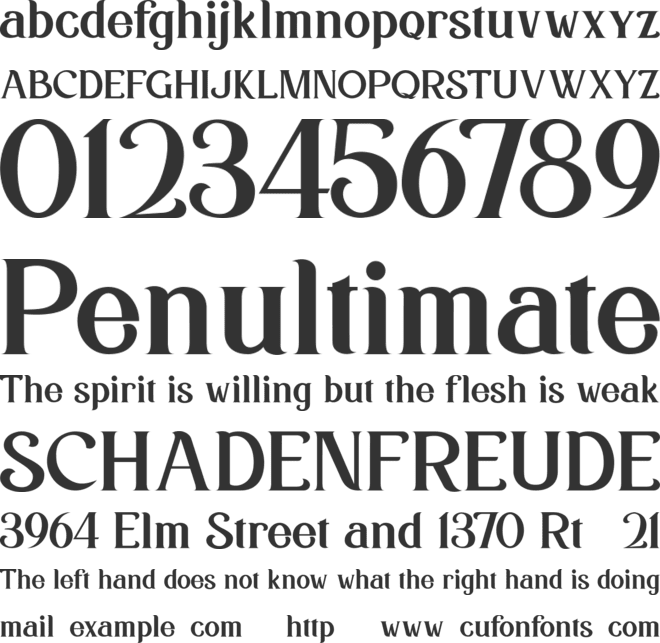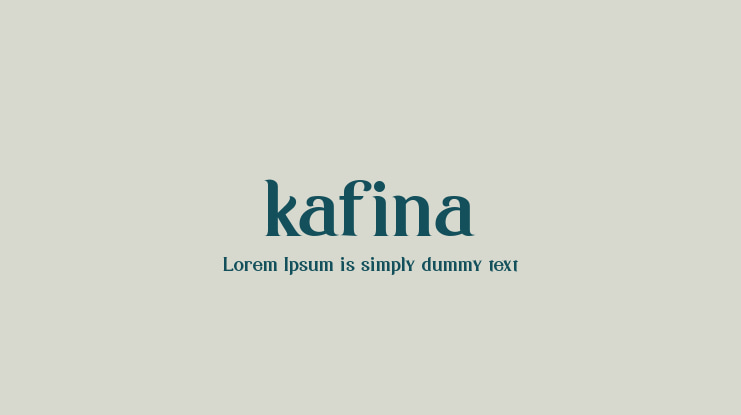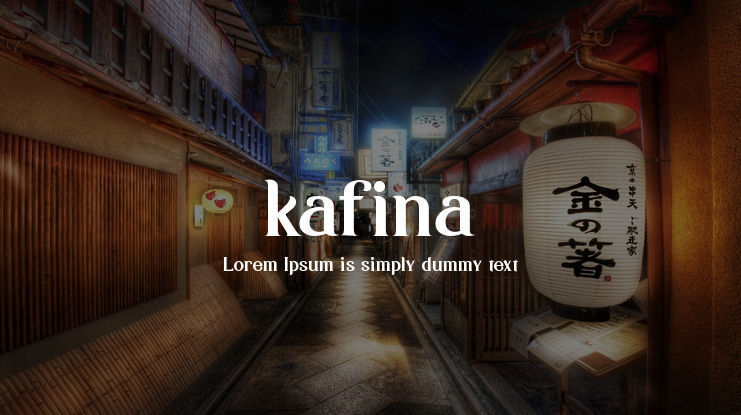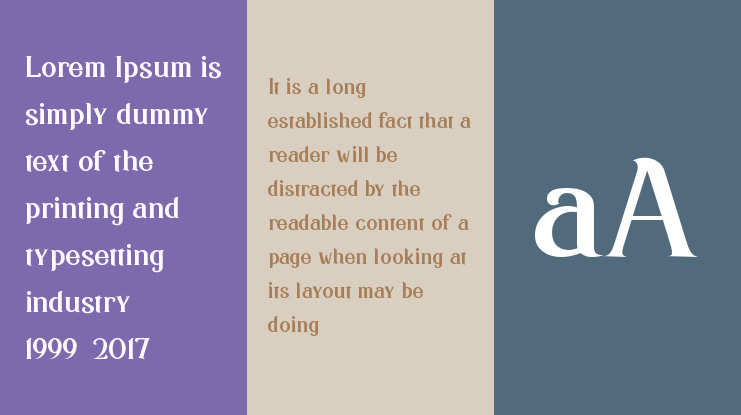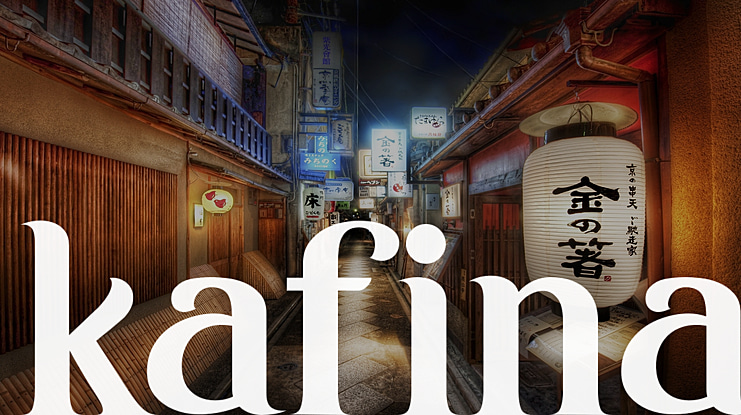
kafina Font
Donis Miftahudin
Say hello to Kafina Serif Font, Kafina is a beautiful display font, designed with a modern and bold style. It's suitable for branding, logo, and many other designs. ============================================================= Link Commercial License = https://din-studio.com/product/kafina-modern-serif-font/ =============================================================